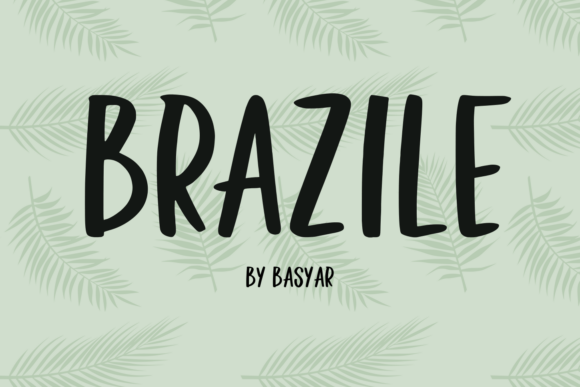
Brazile Font: Adding a Touch of Sunshine to Your Designs
Are you tired of using the same old fonts in your designs? Look no further than Brazile Font, a fun and cheerful handwritten font that’s sure to bring a smile to your audience’s face. With its tall, slightly tilted letters and smooth, rounded edges, Brazile radiates energy and approachability, making it perfect for a wide range of design projects.
The Characteristics of Brazile Font
Brazile Font is a unique and eye-catching font that’s characterized by its tall, slightly tilted letters and smooth, rounded edges. This gives it a lively and energetic feel that’s perfect for designs that need to stand out. The font also has a smooth stroke weight, which keeps it clean and easy to read at any size. Whether you’re designing for a teacher’s newsletter, a kids’ activity book, or a lifestyle brand’s social media campaign, Brazile adds the perfect dose of casual charm.
Uses for Brazile Font
Brazile Font is a versatile font that can be used in a wide range of design projects. Here are some ideas to get you started:
- Education**: Brazile Font is perfect for teachers who want to add a touch of fun and personality to their lesson plans, worksheets, and newsletters.
- Kids’ designs**: The font’s playful and energetic feel makes it ideal for kids’ activity books, coloring books, and other fun projects.
- Lifestyle brands**: Brazile Font is a great fit for lifestyle brands that want to add a touch of casual charm to their marketing materials, such as brochures, flyers, and social media graphics.
- Social media**: The font’s friendly and approachable feel makes it perfect for social media graphics, such as Facebook posts, Instagram captions, and Twitter headers.
The Benefits of Using Brazile Font
So why should you choose Brazile Font for your next design project? Here are just a few benefits:
- Unique and eye-catching**: Brazile Font is a one-of-a-kind font that’s sure to grab your audience’s attention.
- Easy to read**: The font’s smooth stroke weight and clear lettering make it easy to read at any size.
- Versatile**: Brazile Font can be used in a wide range of design projects, from education to lifestyle brands.
- Fun and energetic**: The font’s playful and energetic feel is sure to bring a smile to your audience’s face.
Tips for Using Brazile Font
Here are a few tips for getting the most out of Brazile Font:
- Use it for headlines**: Brazile Font’s lively uppercase style makes it perfect for bold headers and titles.
- Pair it with other fonts**: Try pairing Brazile Font with other fonts to create a unique and eye-catching combination.
- Experiment with colors**: Brazile Font looks great in a wide range of colors, so don’t be afraid to experiment and find the perfect hue for your design.
Brazile Font is a fun and cheerful handwritten font that’s perfect for designers who want to add a touch of sunshine to their designs. With its unique characteristics, versatility, and ease of use, Brazile Font is sure to become a favorite in your design arsenal. So why not give it a try and see how it can bring a smile to your audience’s face?